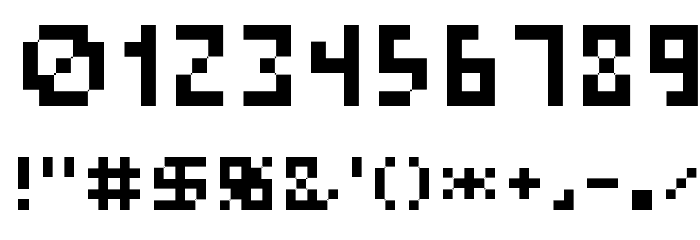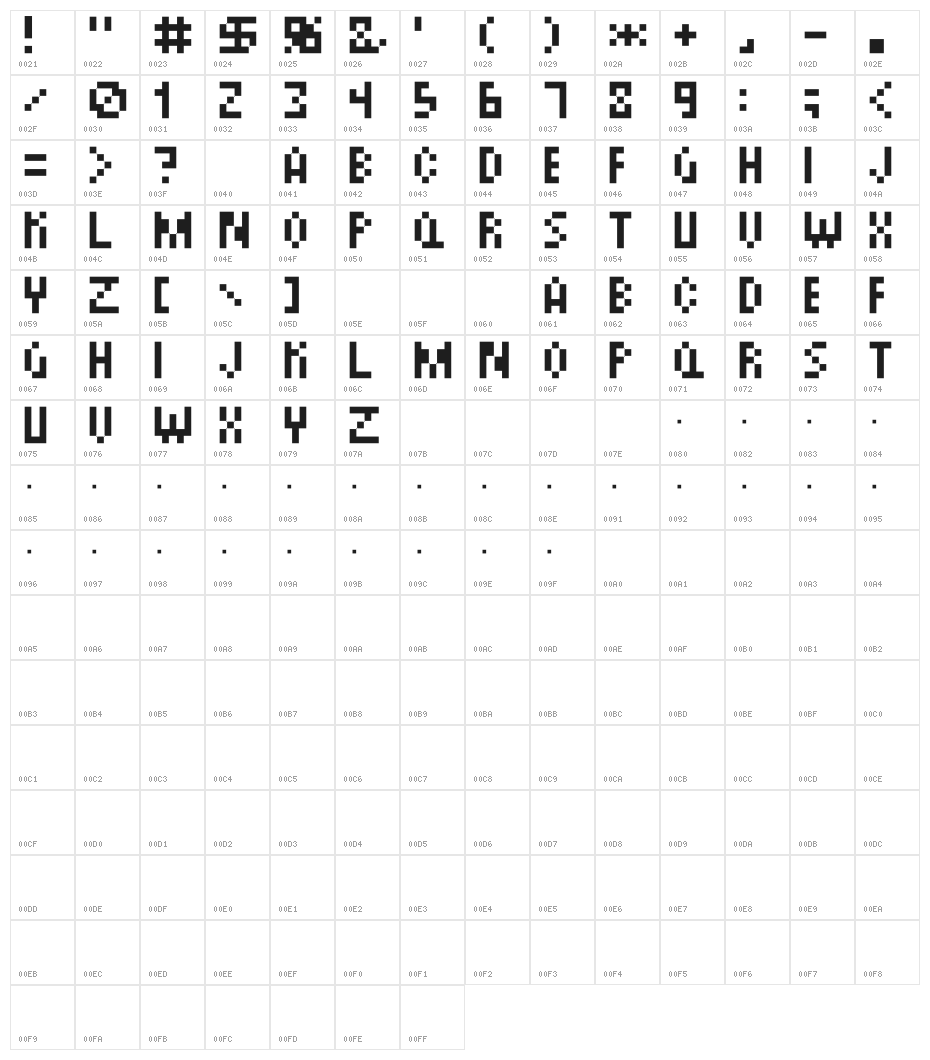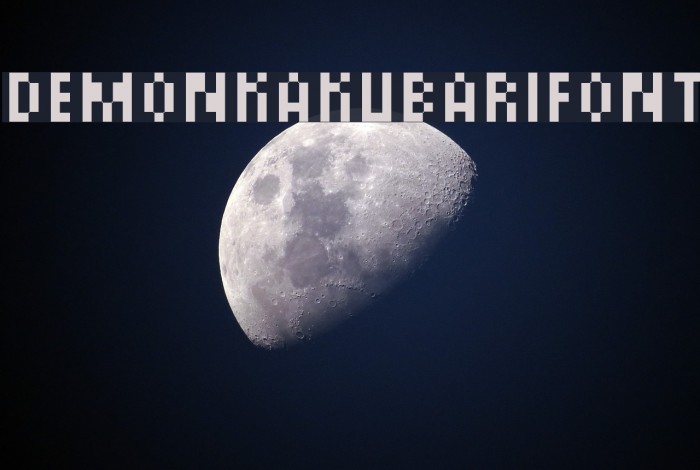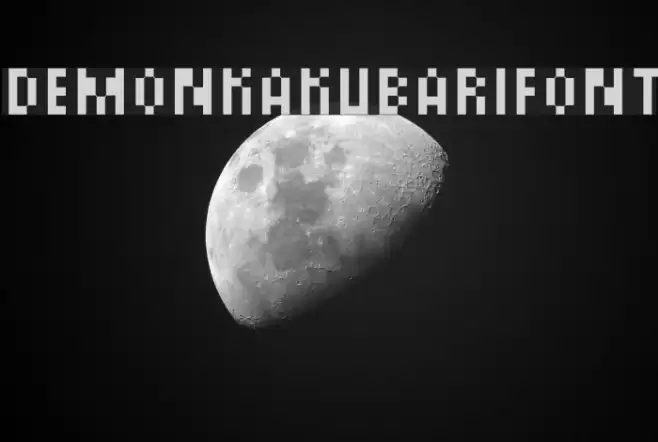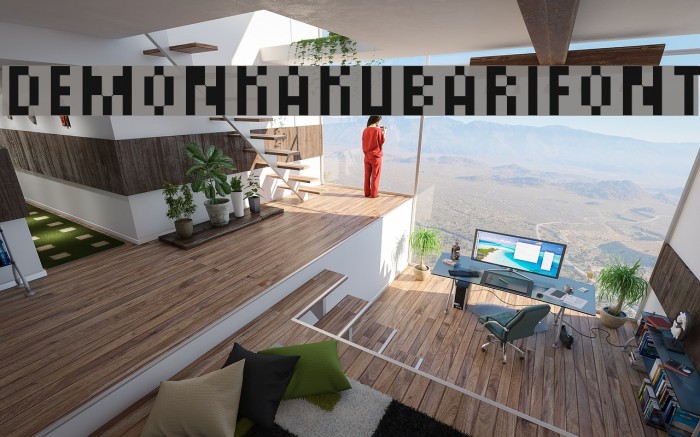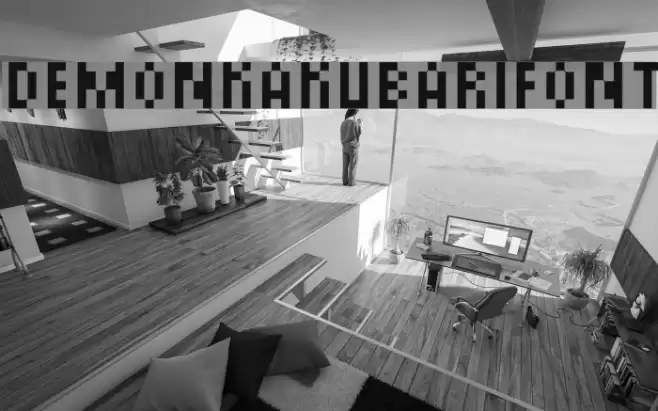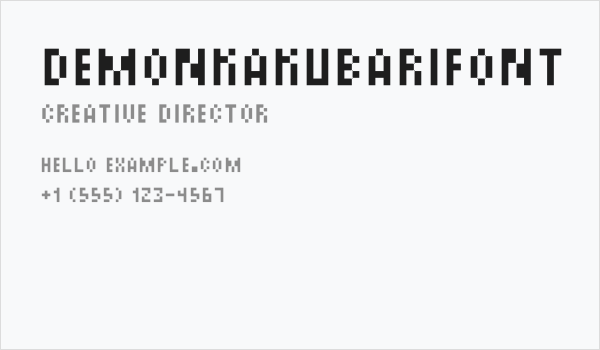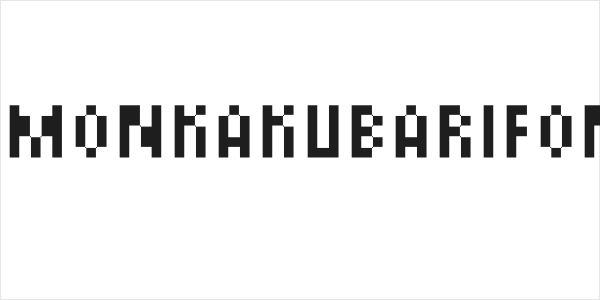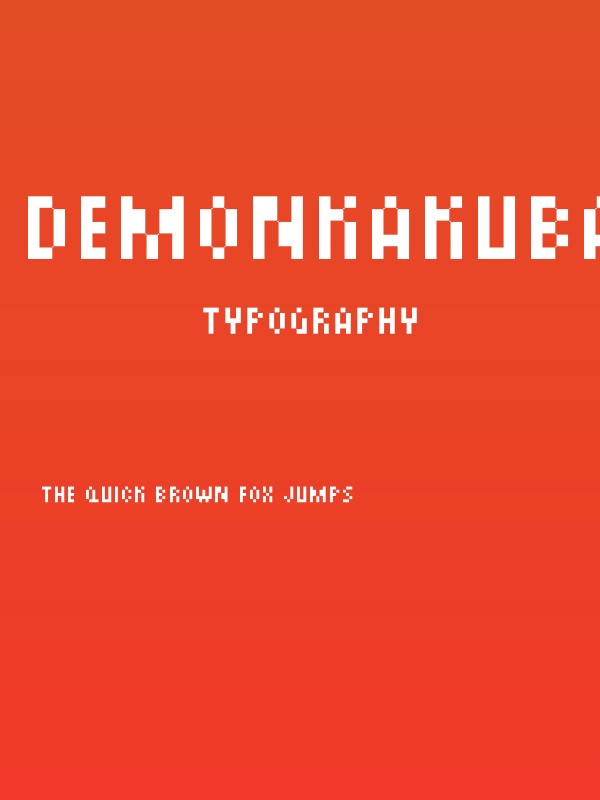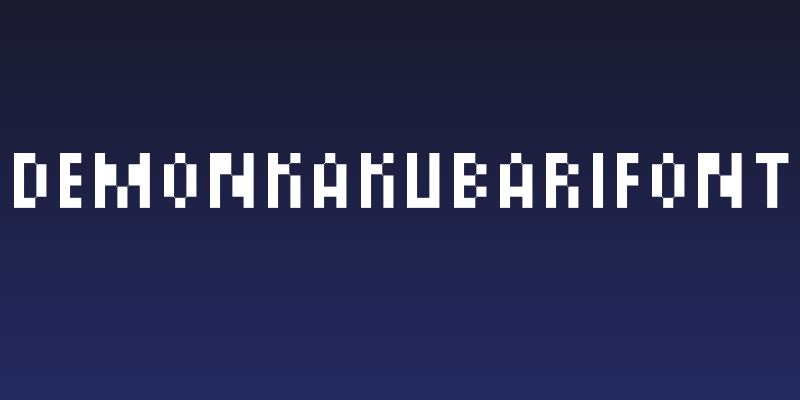
DemonKakubariFont Font
DemonKakubariFont Description
This font is characterized by its pixelated, blocky design, reminiscent of early digital or video game text. Each character is composed of a grid-like structure, giving it a distinctly retro and digital aesthetic. The uppercase and lowercase letters maintain a consistent height, contributing to a uniform appearance. Numbers and special characters follow the same pixelated style, ensuring cohesion across all elements. The font's simplicity and geometric form make it highly legible at various sizes, though it is particularly striking at larger scales where its unique style can be fully appreciated.
| Use Case | Headlines, Logos, Digital Art |
| Proposed Projects | Ideal for video game design, retro-themed posters, digital art projects, and any creative work that seeks to evoke a sense of nostalgia for early digital typography. |